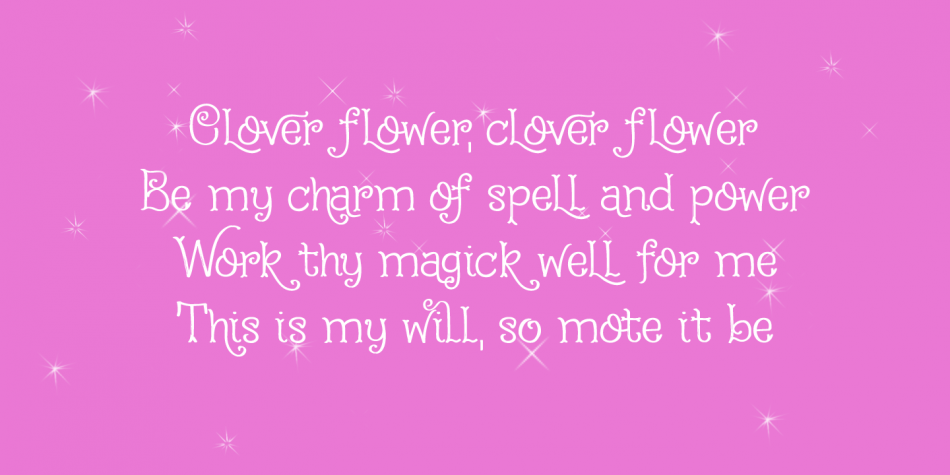
| Designed by David Kerkhoff, Fairy Godmother is a hand drawn and kids font family. This typeface has two styles and was published by Hanoded. |
I like ‘magical’ fonts and it’s been a while since I created one, so here is Fairy Godmother.
Handmade, cute and curly and full of magic! Fairy Godmother comes with a whole bunch of swashes!